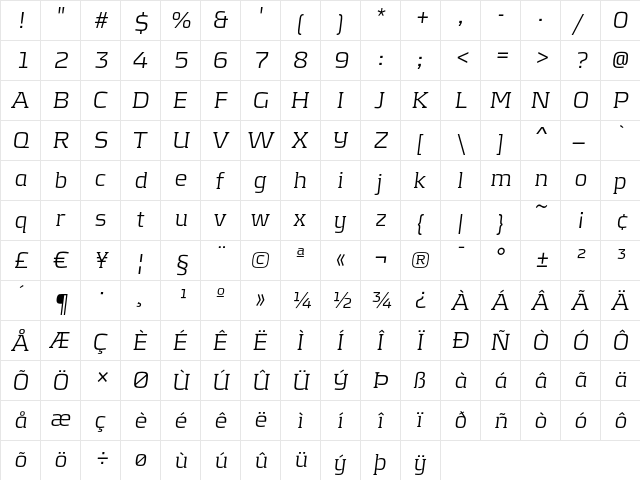
Kontrapunkt Light Italic
Design Context for Kontrapunkt Typeface
Kontrapunkt takes a measured approach to typography — its balanced proportions and neutral character make it a reliable workhorse for both digital and print work. The dynamic lean of this cut emphasises speed and emphasis in any layout. The delicate stroke weight brings airiness and refinement to layouts.